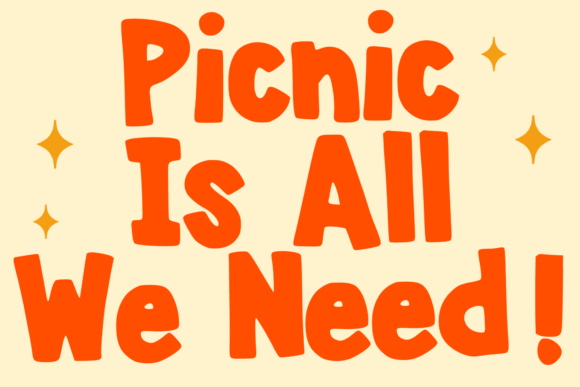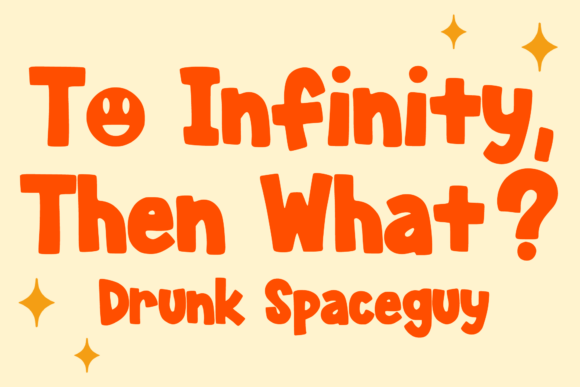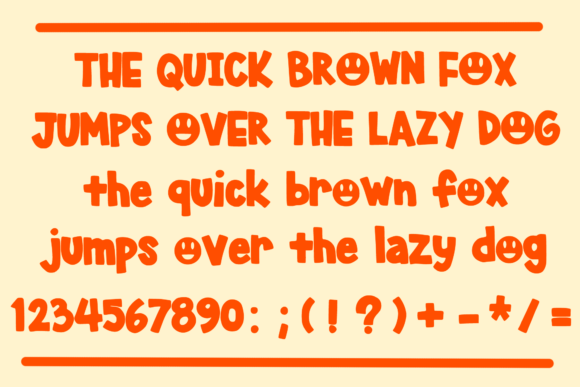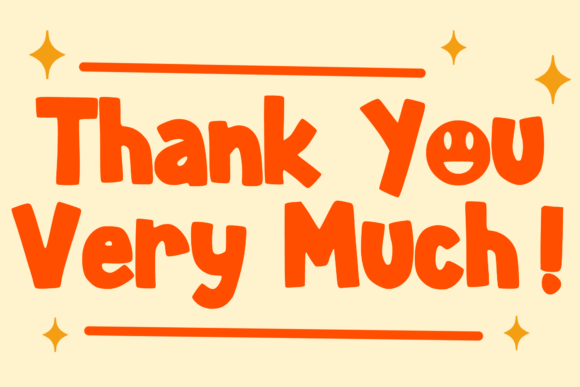
The Ultimate Design Companion: Boss Smile Font
Have you ever been brainstorming a creative project and suddenly, that one font pops into your head, making everything come together? For many designers, that moment is pure magic. But what if you had a font that not only sparks that initial idea but also elevates your design to new heights? Enter the Boss Smile Font, a bold marker font that’s bursting with fun and playful vibes.
This versatile display typography solution is designed to bring a smile to your designs. Whether you’re working on a logo, sticker, or magazine cover, the Boss Smile Font is the perfect choice to infuse charm and personality into your projects. Its unique smile twist in design makes it stand out from the crowd, ensuring your designs stay fresh and vibrant.
Boss Smile Font Key Features
- Font Family: Boss Smile Font is a sans-serif font family designed to convey a sense of friendliness and approachability.
- Unique Characteristics: The font features a unique smile-inspired design element in the uppercase letters, adding a touch of friendliness and approachability to any text.
Designer Review: Boss Smile Font
As a designer, I’ve had the chance to work with the Boss Smile Font, and I must say it’s a mixed bag. Let’s dive in and see what I think.
- ✨ The font’s playful and modern vibe is perfect for brands looking to add a touch of whimsy to their design.
- ✨ The font’s versatility shines through in its ability to work well in both digital and print formats.
- ✨ The font’s friendly and approachable personality makes it a great fit for creative industries like advertising, marketing, and entertainment.
- ⚠️ The font can feel a bit overused, especially in certain design niches, which may make it harder to stand out from the crowd.
- ⚠️ Some users may find the font’s irregularities and quirks to be a bit too much, especially in situations where precision is key.
The Boss Smile Font is a fun and energetic addition to any design arsenal. While it may not be the most versatile font out there, it’s perfect for brands and designers looking to add a playful touch to their work. Just be mindful of its limitations and use it wisely.
Getting the Most Out of Boss Smile Font
For optimal results, use Boss Smile Font in headings or titles to create a bold and eye-catching effect. You can also use it in combination with other fonts to create a unique and stylish look.
Boss Smile Font is ideal for:
- Wedding invitations and event materials
- Print and digital advertising
Alternatives to Boss Smile Font
Great Vibes is a beautiful script font that works well for creating a friendly and approachable atmosphere. It’s perfect for headings, titles, and quotes in various design projects. Compared to Boss Smile Font, Great Vibes has a more elegant and refined feel, making it suitable for high-end designs.
Pacifico is a beautiful and elegant script font that’s ideal for creating a sophisticated and luxurious atmosphere. It’s perfect for headings, titles, and quotes in various design projects. Compared to Boss Smile Font, Pacifico has a more refined and polished feel, making it suitable for premium designs.
Carolyna Pro is a modern and elegant script font that works well for creating a professional and luxurious atmosphere. It’s perfect for headings, titles, and quotes in various design projects. Compared to Boss Smile Font, Carolyna Pro has a more refined and sophisticated feel, making it suitable for high-end designs.